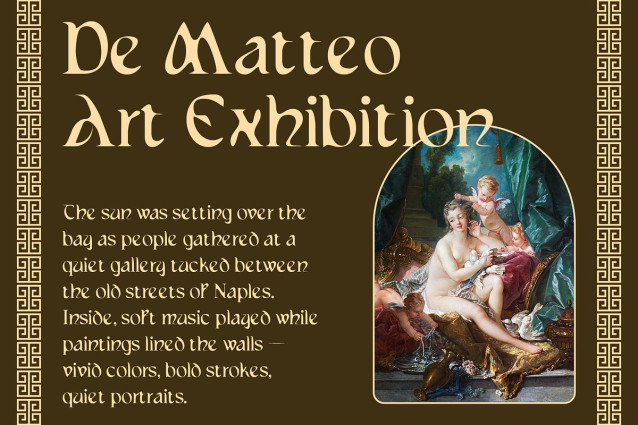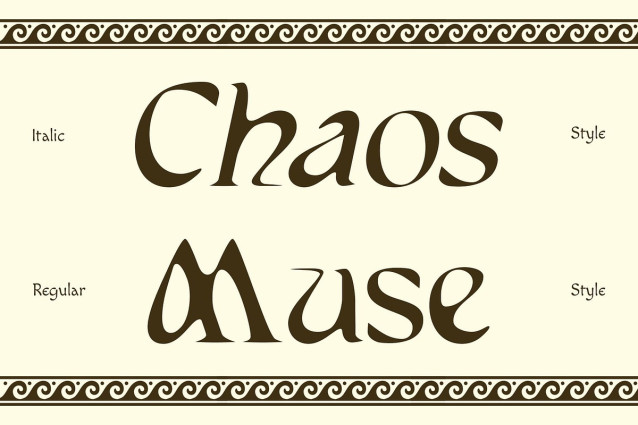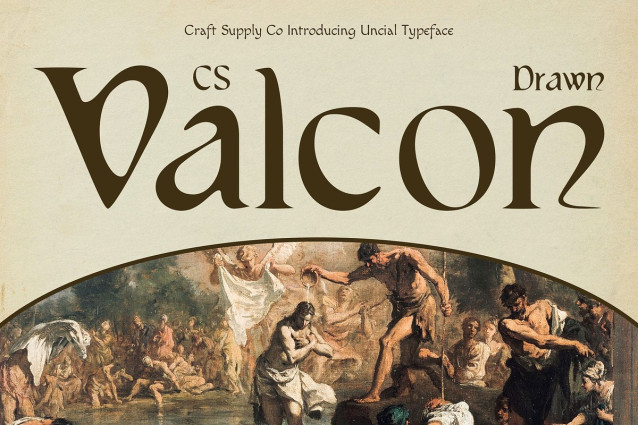
CS Valcon Drawn Font
CS Valcon Drawn is a display serif font rooted in the uncial tradition, featuring rounded, open letterforms inspired by ancient manuscripts. Its historical lineage is reinterpreted with modern clarity and elegance, resulting in a font that feels both timeless and forward-looking.
Handmade Texture for Organic Sophistication Enhanced with a drawn effect, the font carries a handmade texture that brings warmth, irregularity, and depth. The organic detailing softens the serif structure, making the type feel authentic, expressive, and deeply personal. This textured finish not only adds visual interest but also gives the font a crafted, artistic spirit, setting it apart from standard digital serif fonts.
A Refined Blend of Classic and Contemporary With its clean serif structure and flowing uncial influence, this font has a warm and organic feel, offering a beautiful harmony between historical elegance and modern design sensibilities. It conveys a gentle authority, ideal for applications that demand character without overwhelming formality.
Ideal for Artistic and Storytelling Applications This expressive font is perfect for projects that lean into artistic branding, editorial design, mythic or folklore-inspired visuals, and narrative-rich content. Its combination of ancient charm, modern finesse, and hand-drawn character makes it a distinctive typeface for designers seeking a unique, poetic, and culturally evocative aesthetic.